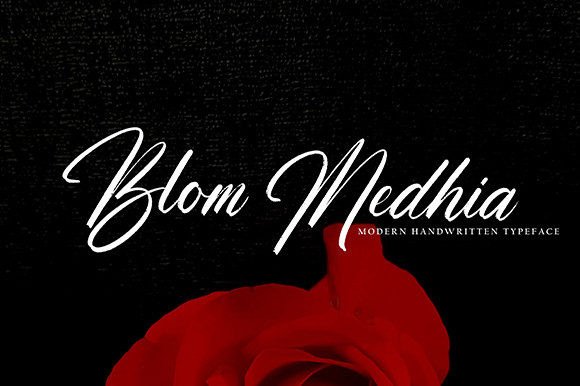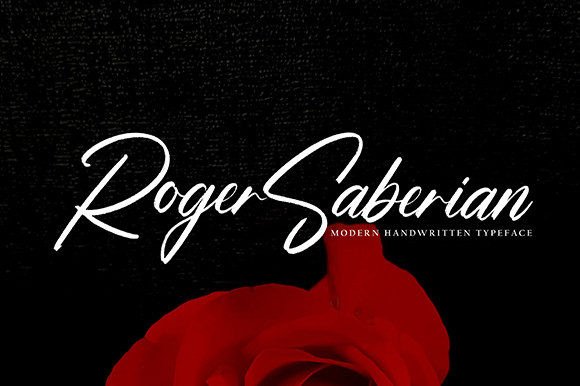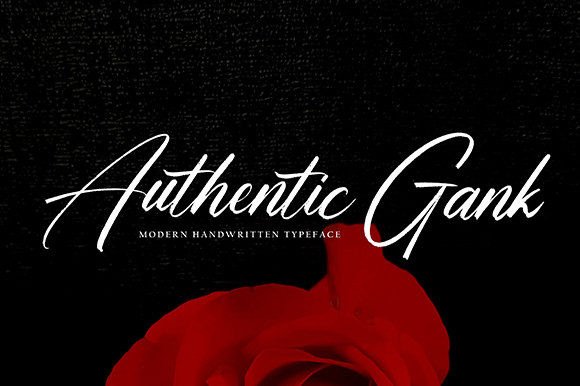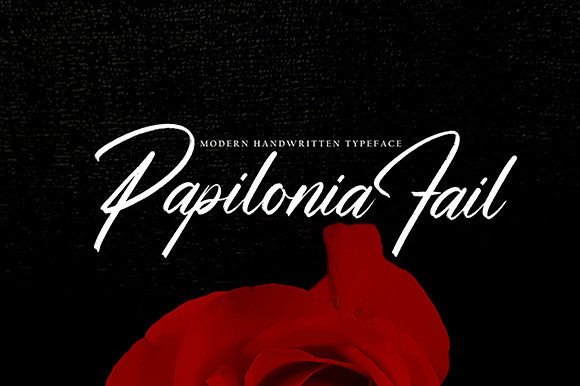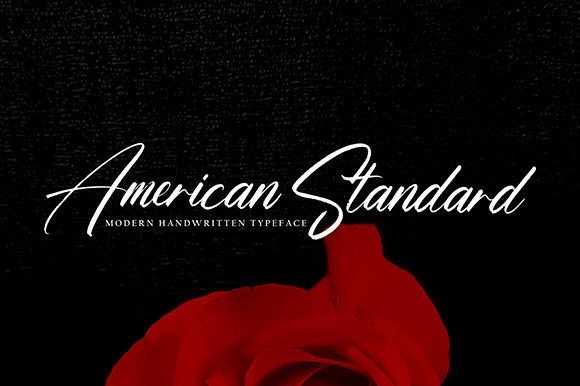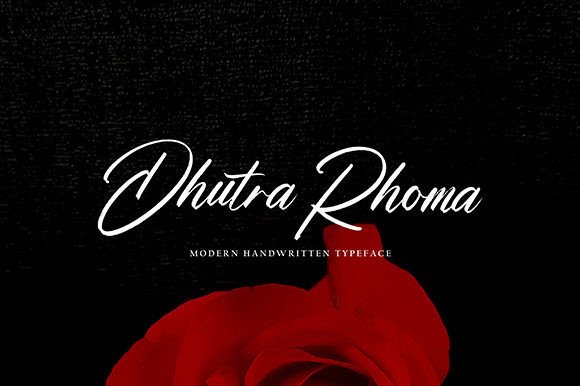
Introduction to Lutternal Shote Font
You’ve spent hours pouring your heart and soul into your creative project, and the moment of truth finally arrives – it’s time to add the finishing touches. You’re searching for the perfect font to bring your design to life, but nothing seems to capture the essence of your vision. That’s when you stumble upon a hidden gem – the Lutternal Shote Font.
This delicate, elegant, and flowing handwritten font is more than just a pretty face. Its beautiful and well-balanced characters make it a versatile design resource that can elevate any project. Whether you’re working on a high-quality brochure, a free download for a client, or a website with a transparent background, Lutternal Shote Font is the perfect companion to help you achieve your design goals.
As a designer, you know how valuable a great font can be in making your work stand out. With Lutternal Shote Font, you’ll have the freedom to experiment with different styles and ideas, knowing that you have a reliable and high-quality font to fall back on. Get ready to unleash your creativity and watch your designs come alive with the Lutternal Shote Font.
Key Features of Lutternal Shote Font
- Unique and creative design for various projects, making it a valuable design resource.
- High-quality font with a transparent background, allowing for seamless integration into any design.
- Perfect for use in digital designs, such as social media graphics, logos, and web pages.
- Unique characteristics include a bold and playful style, making it ideal for creative projects and branding.
Honest Review: Lutternal Shote Font
I recently came across the Lutternal Shote Font and I must say, it’s a great addition to any creative project. The design is sleek and modern, making it perfect for a variety of uses, from digital art to graphic design.
One of the things that works well for this font is its high quality. The characters are crisp and clear, even at smaller sizes. This makes it a great choice for projects where you need to ensure readability. Additionally, the font has a transparent background, which allows for easy color manipulation and customization.
- High quality characters
- No italic or bold versions available
- May not be suitable for very small text sizes
Overall, I’m impressed with the Lutternal Shote Font and would definitely recommend it to anyone looking for a modern and stylish font for their creative project.
Use the Lutternal Shote Font to add a touch of elegance to your presentations and documents.
Tips for Getting the Most Out of Lutternal Shote Font
Use the Lutternal Shote Font on a transparent background to create a unique design effect.
Combine the Lutternal Shote Font with other high-quality design resources to create a stunning visual display.
Use the Lutternal Shote Font for your creative project’s logo, branding, or typography.
Apply the Lutternal Shote Font to your design project’s headings, titles, or paragraphs for a cohesive look.